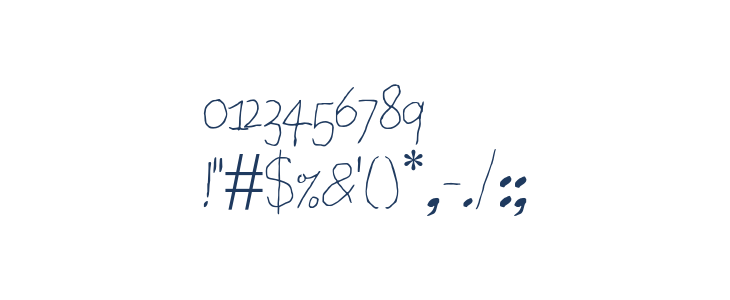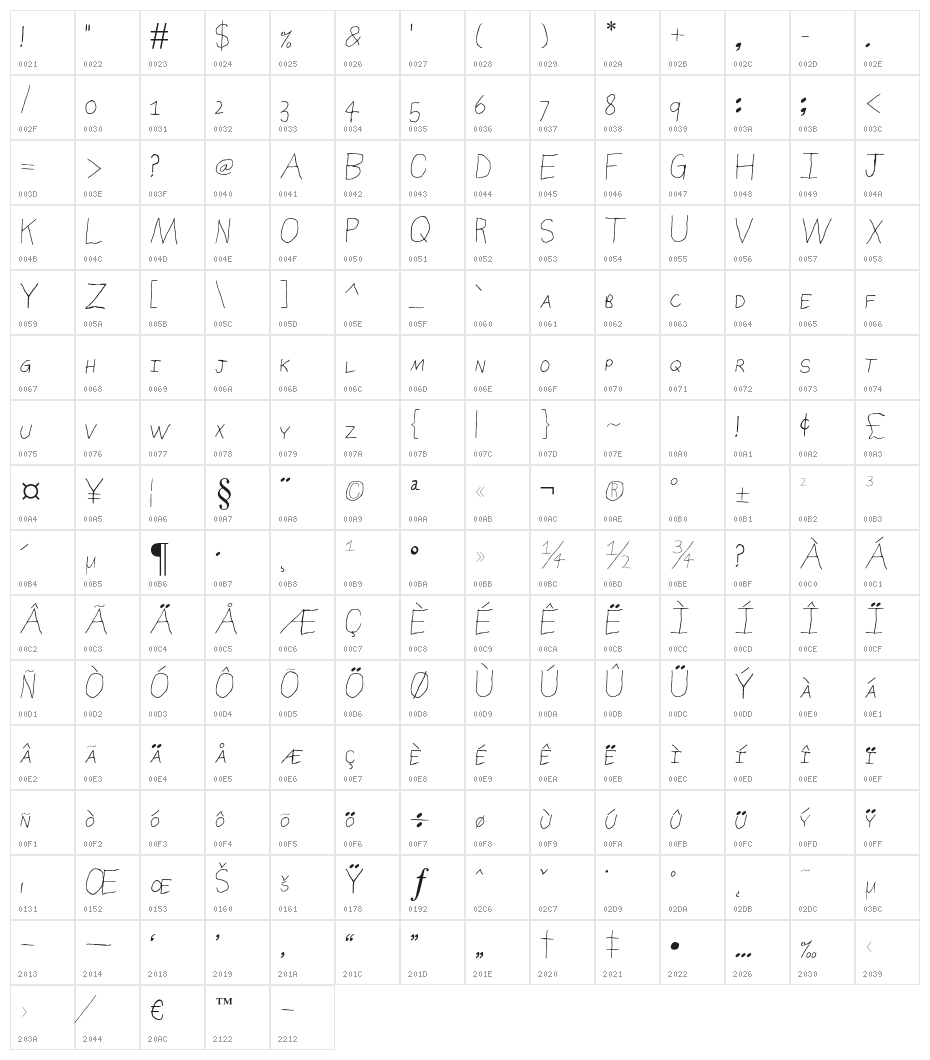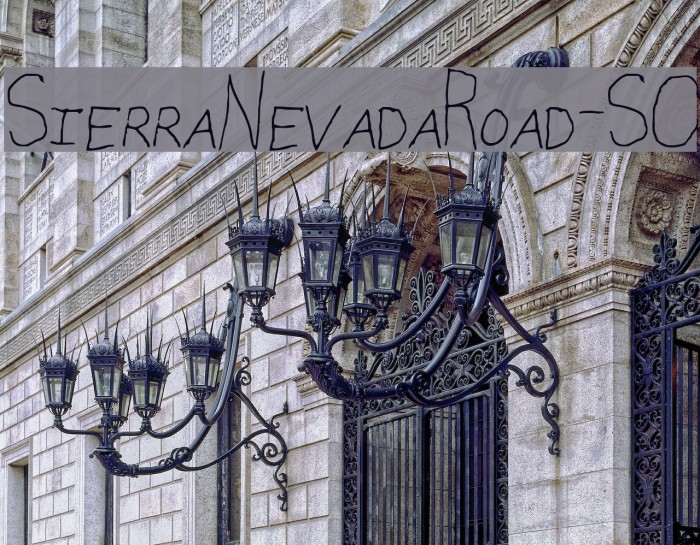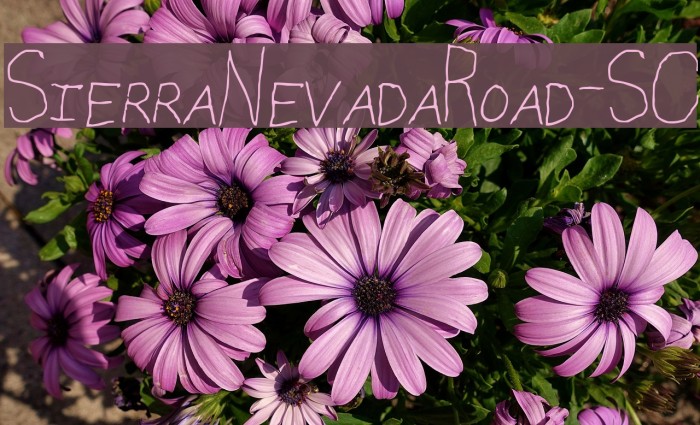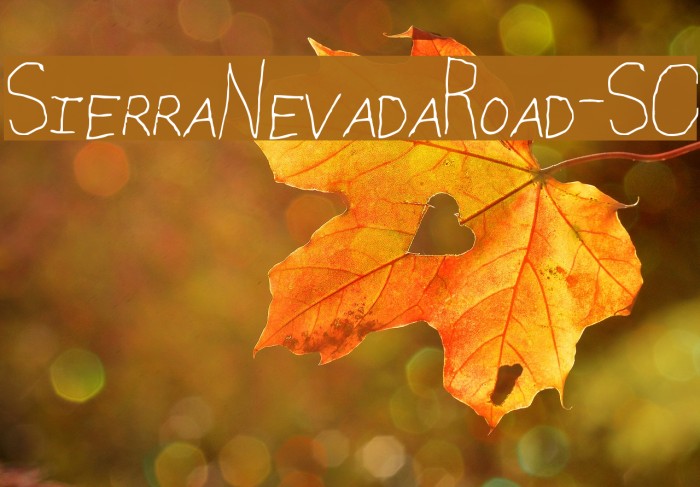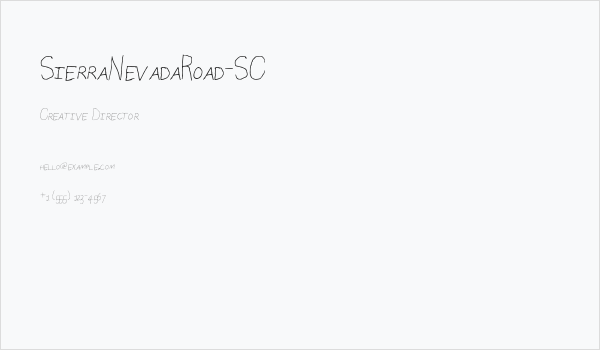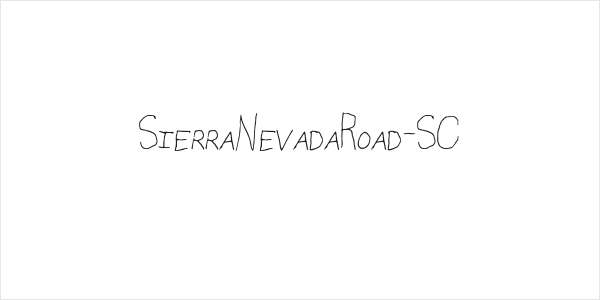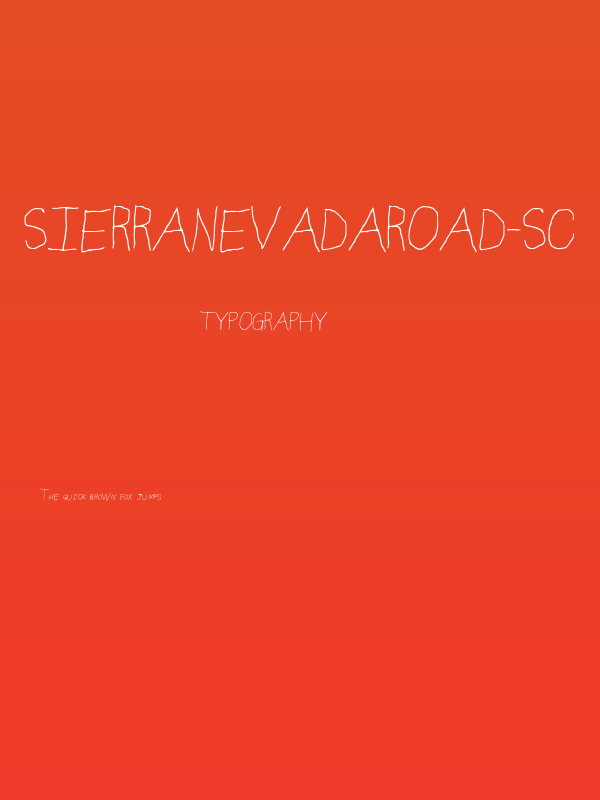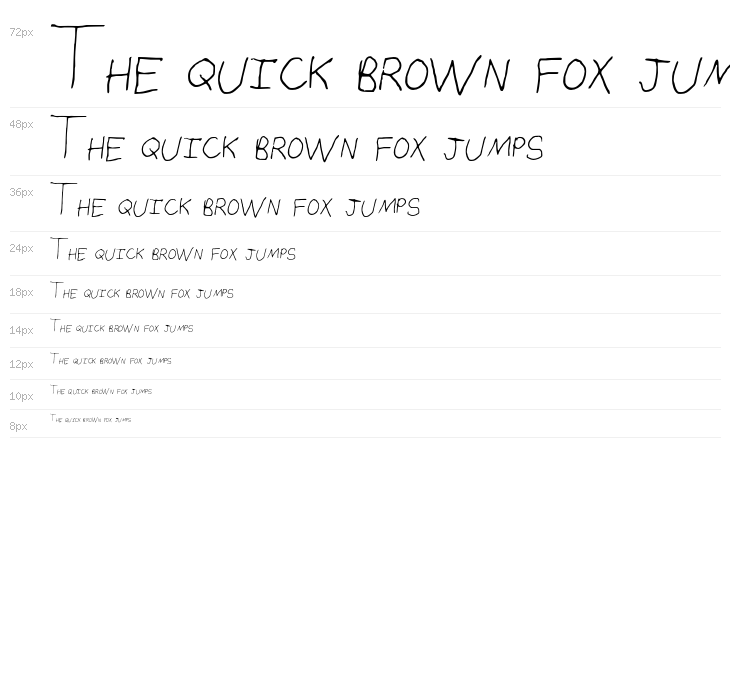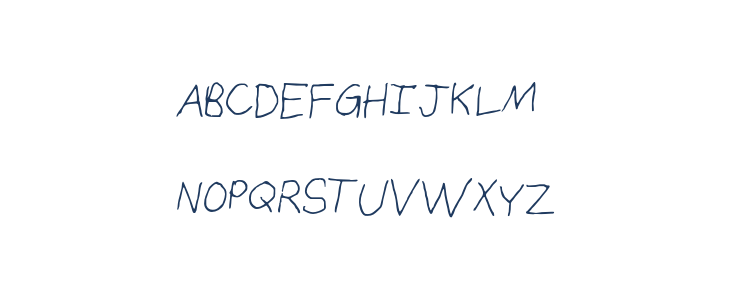
SierraNevadaRoad-SC Font
SierraNevadaRoad-SC Description
This font features a handwritten style with a casual and organic appearance. The characters are uneven and slightly irregular, giving it a natural and authentic feel. The uppercase and lowercase letters maintain a consistent flow, while the numbers and special characters complement the overall design. The strokes are thin and vary slightly in thickness, adding to the hand-drawn aesthetic. This font is suitable for projects that require a personal touch or a relaxed, informal vibe.
| Overall Style | Casual, Organic |
| Use Case | Logos, Invitations, Personal notes |
| Proposed Projects | Ideal for greeting cards, personal notes, invitations, and creative projects that require a personal touch. |